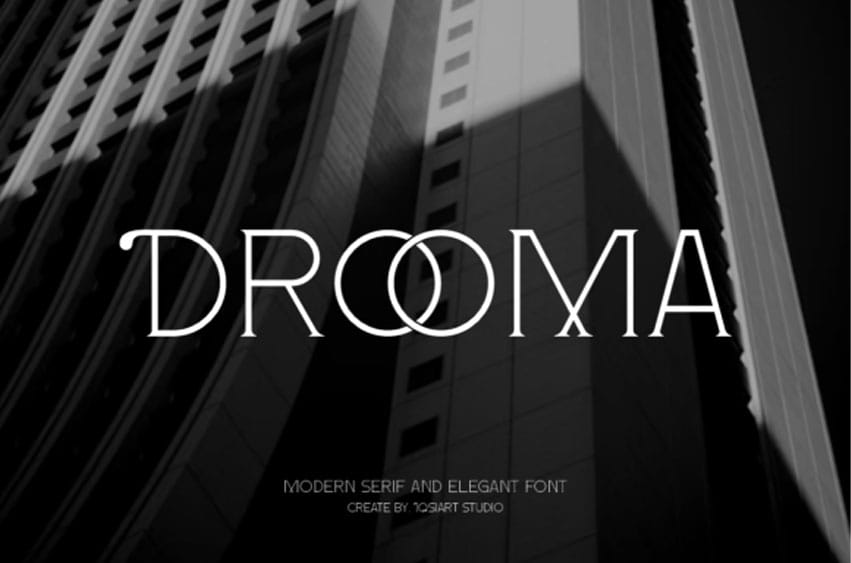
Drooma Font is a thin display font that exudes elegance and modern minimalism. Featuring delicate strokes, refined curves, and sleek letterforms, it captures a sophisticated and airy aesthetic.
Ideal for fashion branding, editorial headlines, invitations, and luxury packaging, it adds a subtle and graceful touch to any design. With its light structure and clean details, this font delivers both style and clarity.